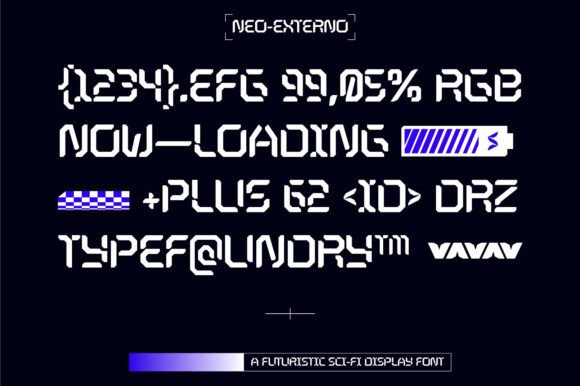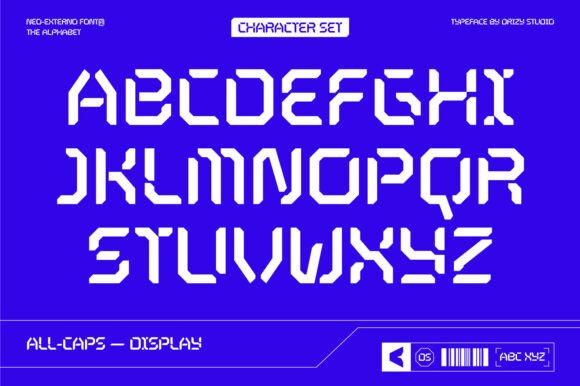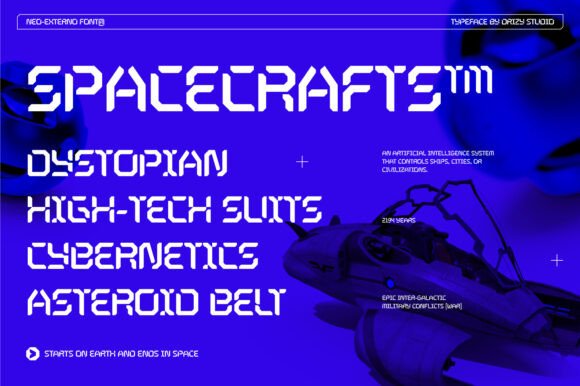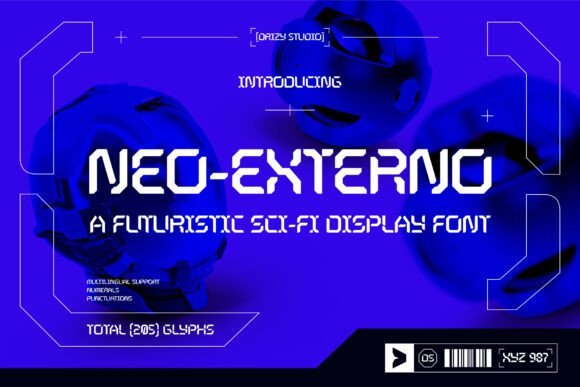
Introduction to Neo-externo Font
Neo-Externo – Futuristic Sci-Fi Display Font Neo-Externo is a step into the future of typography with a bold and cutting-edge font crafted for the dynamic world of Esports Design and sci-fi enthusiasts.
I’s sleek, angular design captures the energy of high-tech battles and intergalactic adventures, making it perfect for gaming logos, team branding, and futuristic projects Whether you’re creating adrenaline-pumping overlays, immersive posters, or standout merchandise, Neo-Externo brings a modern edge that demands attention.
Key Features of Neo-externo Font
Why Choose Neo-externo Font?
Neo-externo Font offers exceptional quality and versatility, making it a valuable addition to your design toolkit. Whether you’re creating for personal projects or commercial use, Neo-externo Font delivers professional results.